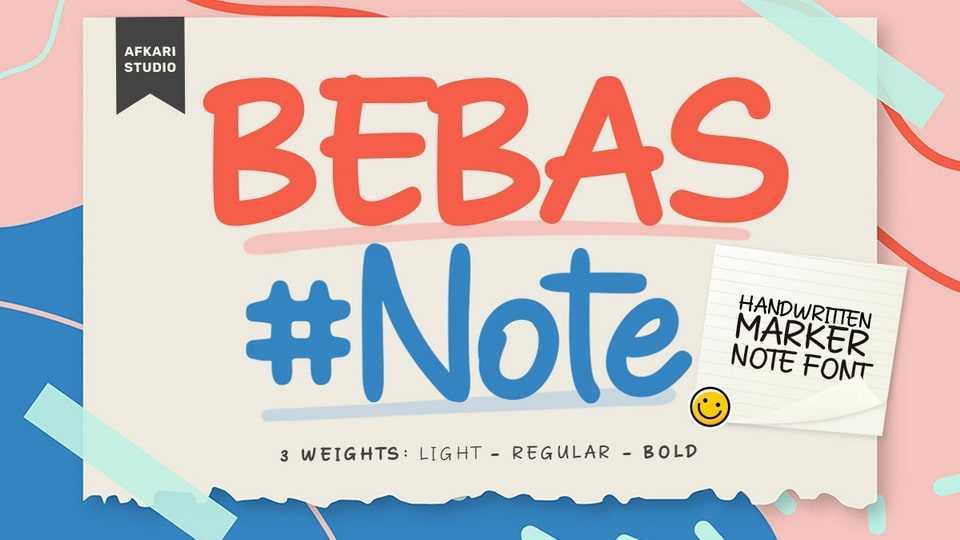
Download Bebas Note font, a handwritten marker typeface, skillfully designed to bring a touch of personalized charm to your projects.
Designer: Afkari Studio